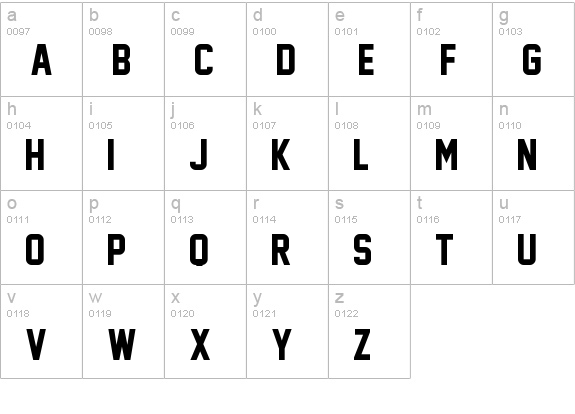
Face Off M54 is a striking and bold font that exudes power and strength. With its sharp edges and unique design, this font demands attention and leaves a lasting impression. It is perfect for creating eye-catching headlines, logos, and posters that will captivate your audience. This font boasts a modern and futuristic look, making it ideal for projects that require a contemporary and edgy feel. Its strong presence on the page ensures that your message will be delivered with impact and clarity. Whether you're designing a sports-related project, a tech startup logo, or an innovative advertising campaign, Face Off M54 is the perfect choice to make a statement. What sets Face Off M54 apart is not only its exceptional design, but also the fact that it is freely available to download at FontsMarket.com. With just a few clicks, you can access this powerful font and unleash your creativity without any cost. FontsMarket.com offers a vast collection of high-quality fonts, and Face Off M54 is no exception. Enjoy the freedom to experiment and create without any financial constraints. Whether you're a professional designer looking to add some flair to your work or an amateur enthusiast exploring the world of typography, Face Off M54 is a font that will elevate your designs to the next level. Its versatility, boldness, and availability make it a must-have in your font collection. So, don't miss out on this incredible opportunity to download Face Off M54 for free at FontsMarket.com and let your creativity run wild. Stand out from the crowd with this powerful font and make a lasting impression on your audience.